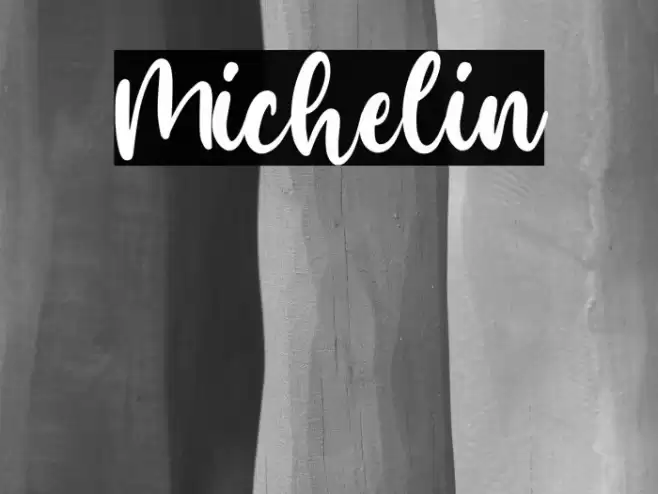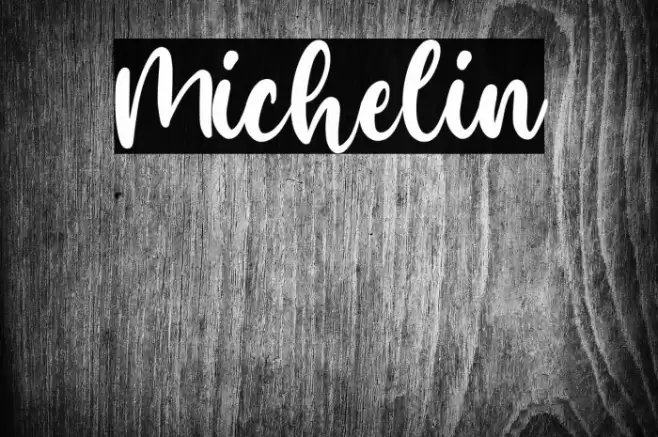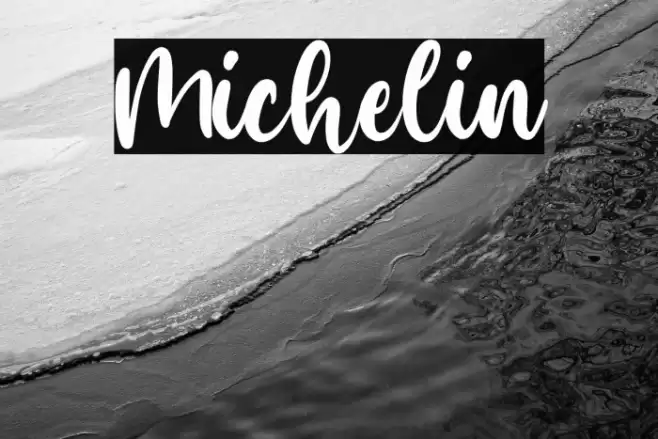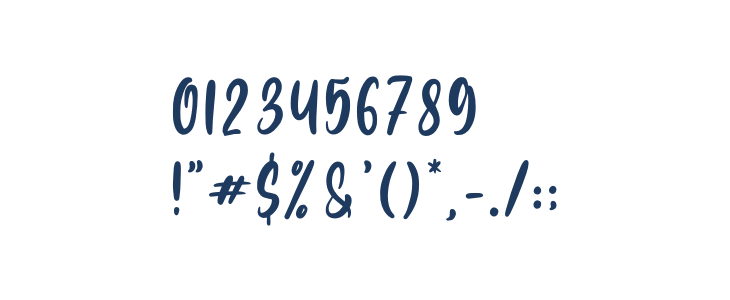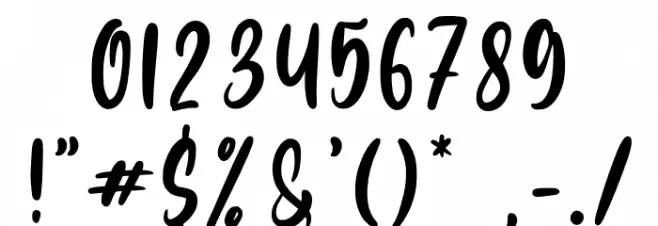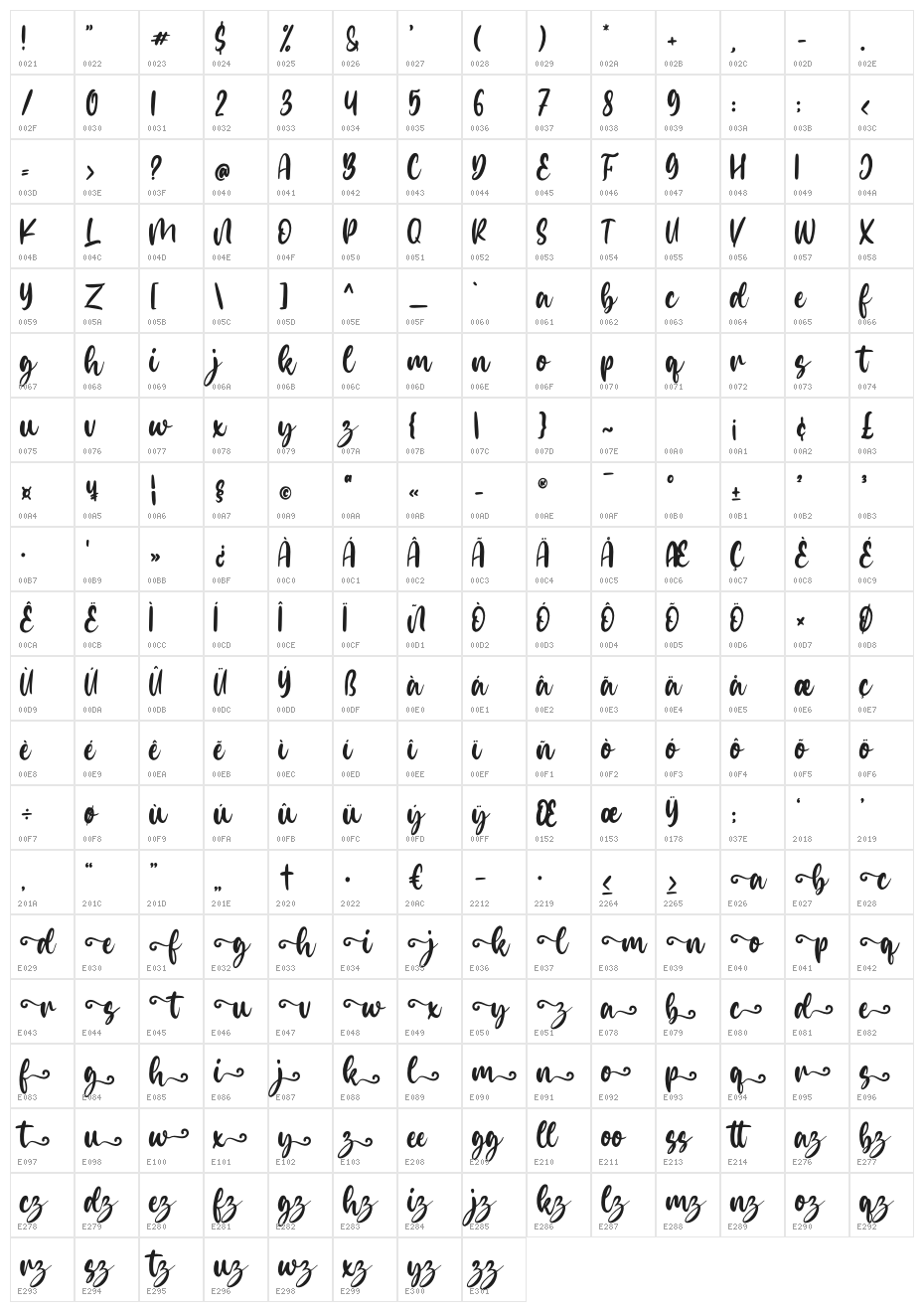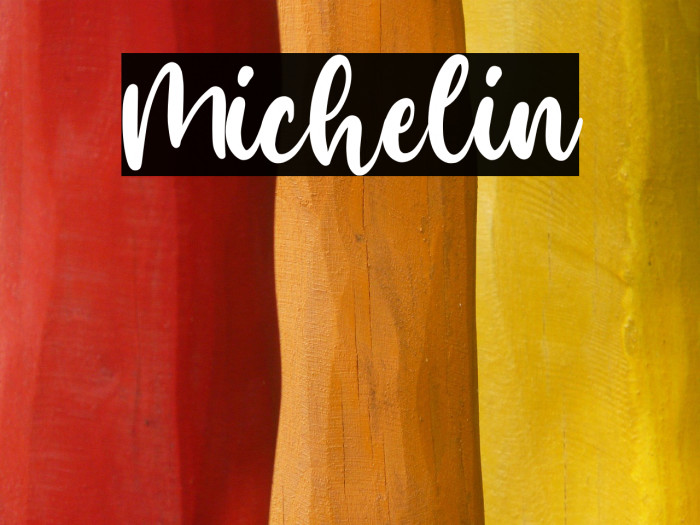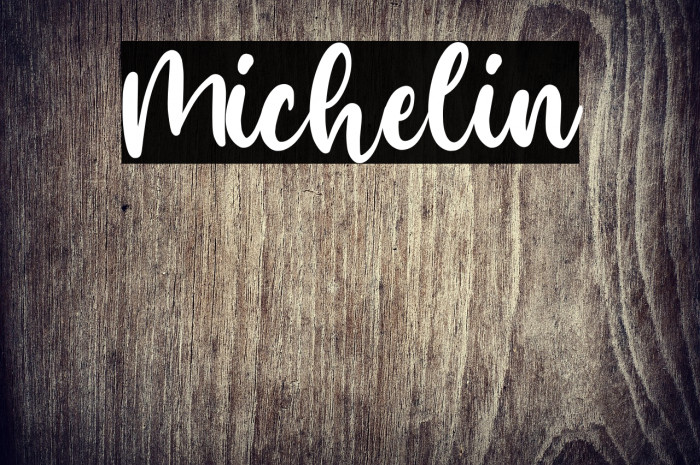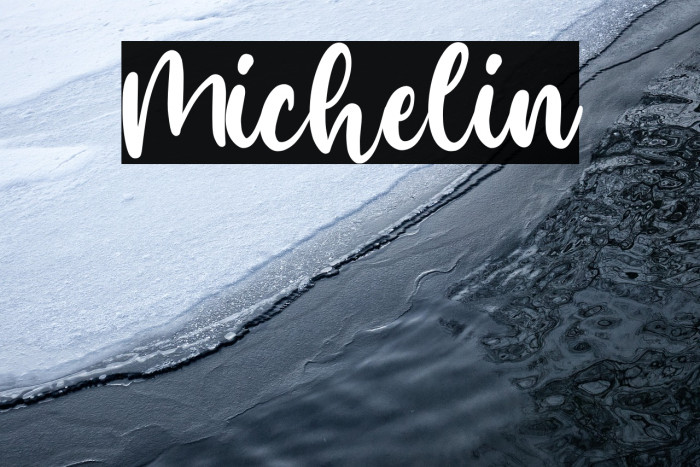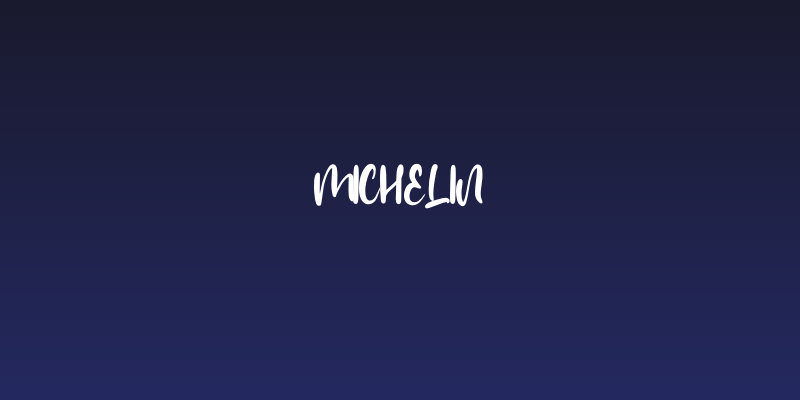
Michelin Font
Michelin Description
This font features a bold, handwritten style with a playful and energetic feel. The characters are fluid and dynamic, with a brush-like appearance that adds a personal touch to any design. The uppercase letters are tall and slightly slanted, while the lowercase letters maintain a consistent flow with rounded edges. Numbers and special characters are designed to match the overall aesthetic, ensuring a cohesive look across all text elements. The font's boldness makes it highly legible, even at smaller sizes, while its unique style ensures it stands out in any context.
A bold, handwritten font with a playful and energetic style from Uncategorized fonts.